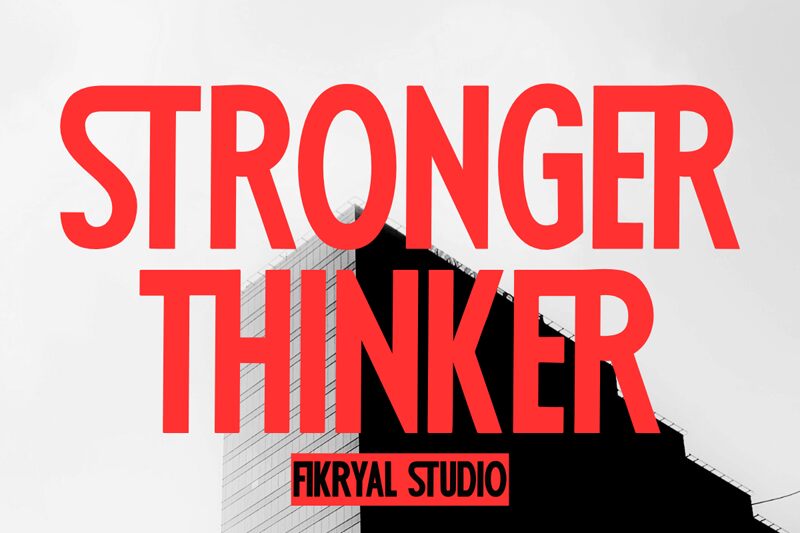
Stronger Thinker Light
Stronger Thinker Light font by Muhamad Fikry Nuralif of Fikryal Studio is a free sans serif typeface that turns cramped layouts into bold statements. Tall, tightly condensed letters stack together like sturdy columns, giving you big, punchy headlines without eating up horizontal space. The strokes feel solid and inky, with a no-nonsense rhythm that reads fast and hits hard.
Using Stronger Thinker Light, you can squeeze powerful wording into posters, event flyers, YouTube thumbnails, magazine covers, social media graphics, and packaging without sacrificing impact. This free font shines when set large with a touch of extra tracking, and it pairs smoothly with a clean, wider sans serif for supporting body copy.